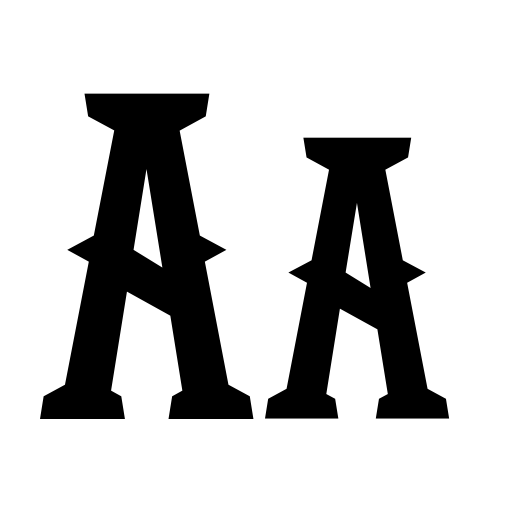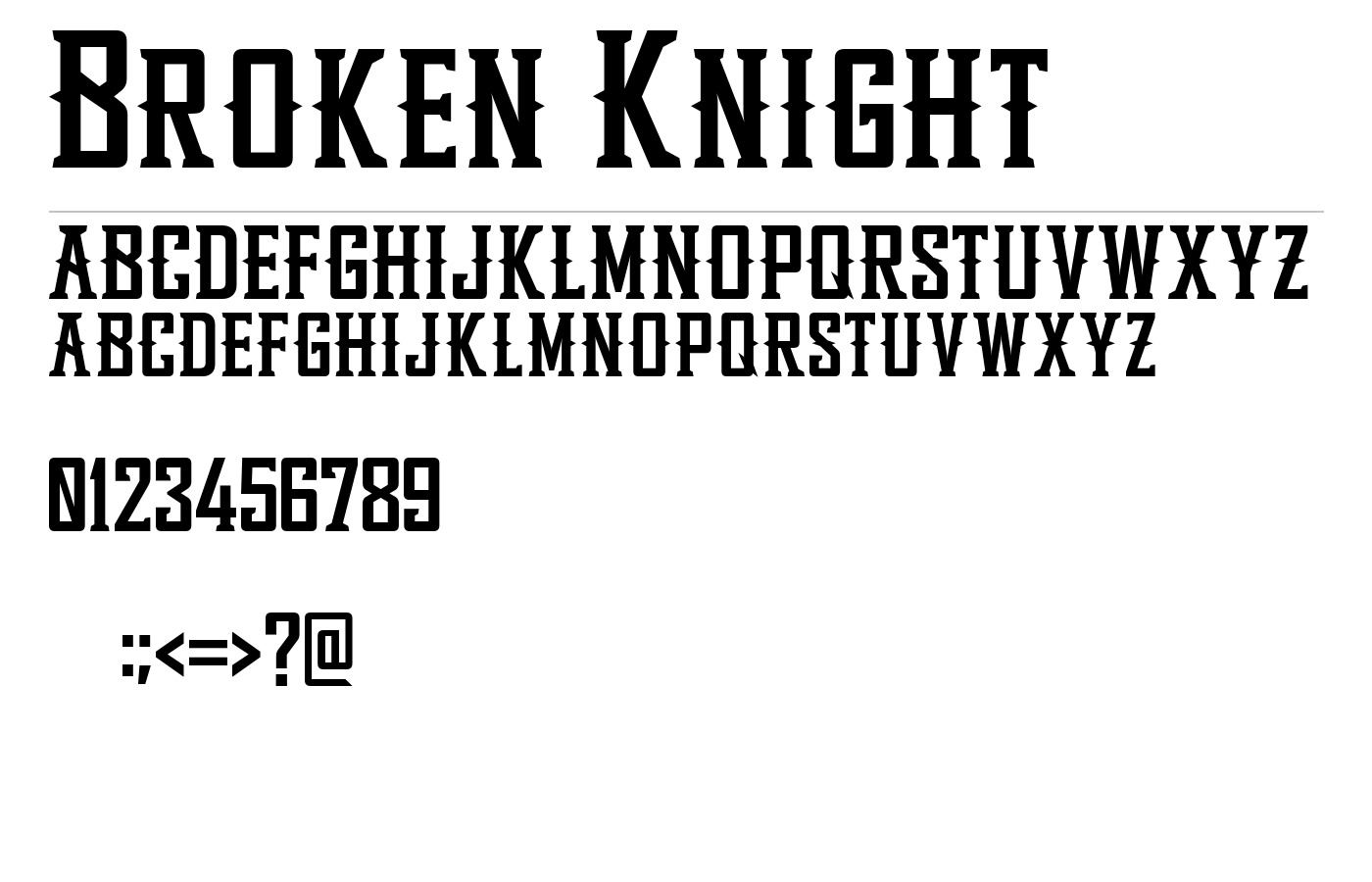
Broken Knight is a bold, condensed slab serif font with sharp, angular edges and a strong, geometric structure that evokes a rugged, medieval feel. Its distinctive broken shapes and high contrast strokes give it a striking, vintage warrior-like personality, making it ideal for impactful headlines, logos, and branding that require a bold, adventurous statement. This font works especially well in designs related to gaming, fantasy, and rustic or western themes, lending a powerful and memorable presence.
Broken Knight Font
About Broken Knight Font